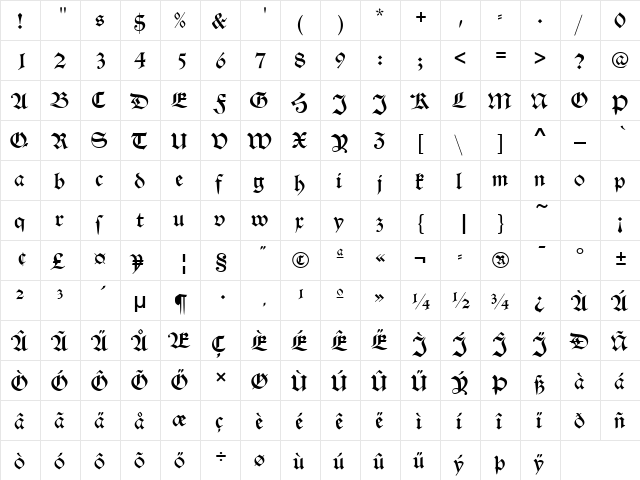
AlteSchD Regular
Design Context for AlteSchD Typeface
AlteSchD takes a measured approach to typography — its balanced proportions and neutral character make it a reliable workhorse for both digital and print work.